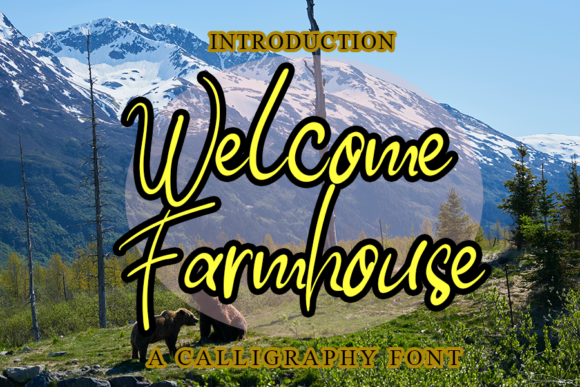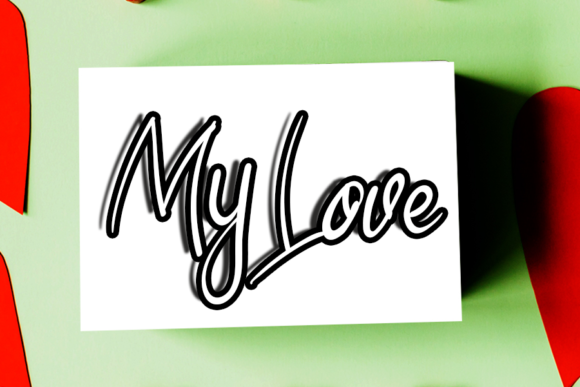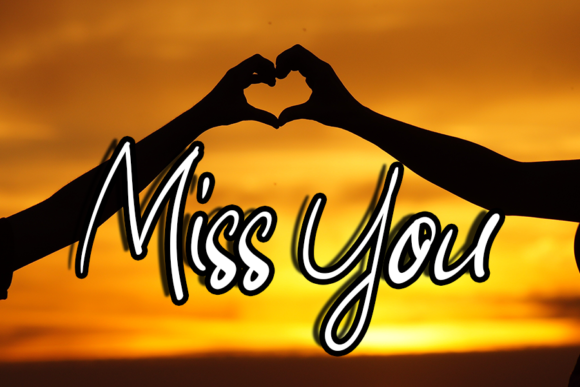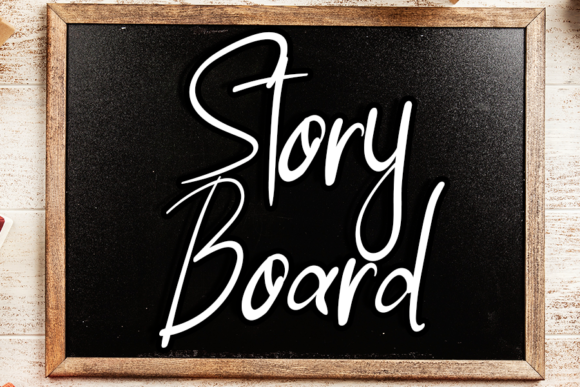
Welcome Farmhouse Font
About Welcome Farmhouse Font
Welcome Farmhouse is a delightful and friendly script font that adds a charming handwritten touch to your design projects. With its warm and inviting style, this font is versatile and suitable for a wide range of creative endeavors.
Whether you’re working on greeting cards, invitations, logos, branding, posters, or any other design project, Welcome Farmhouse brings a sense of friendliness and authenticity. Its casual and approachable appearance creates a welcoming atmosphere and adds a personal touch to your designs.
The smooth and flowing letterforms of Welcome Farmhouse make it easy to read and visually appealing. The script style adds a sense of elegance and creativity, while the friendly nature of the font makes it perfect for conveying a warm and inviting message.
The versatility of Welcome Farmhouse allows you to experiment and get creative with your designs. Whether you’re aiming for a rustic farmhouse aesthetic, a handmade feel, or simply want to add a touch of charm, this font can adapt to various themes and design styles.
The handwritten touch of Welcome Farmhouse brings a sense of authenticity and adds a personal and human element to your designs. It creates a connection with your audience and makes your projects feel more approachable and relatable.
In summary, Welcome Farmhouse is a friendly script font that adds a handwritten touch to your design projects. Its warm and inviting style makes it suitable for various creative endeavors, from greeting cards to branding. Get creative with Welcome Farmhouse and let its charm and authenticity enhance your designs.